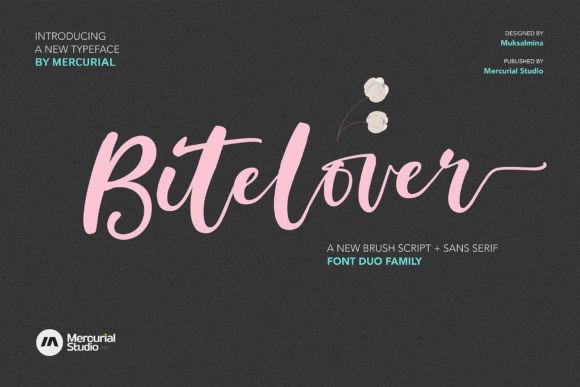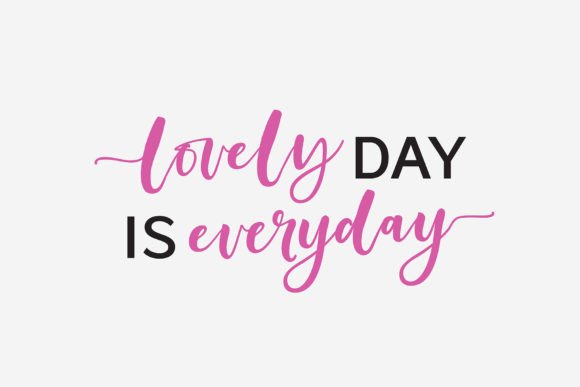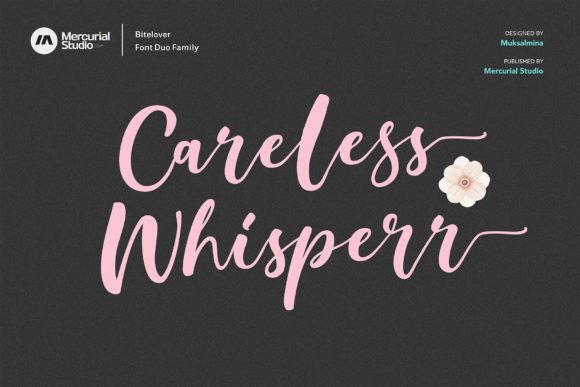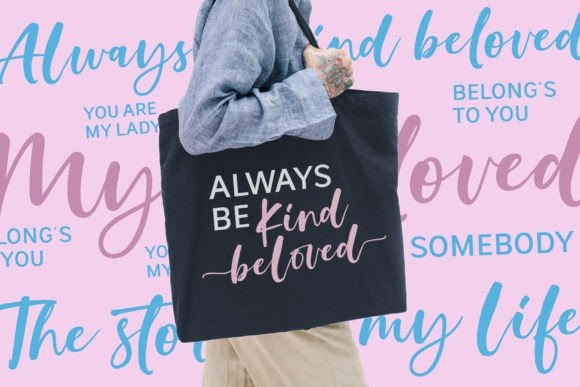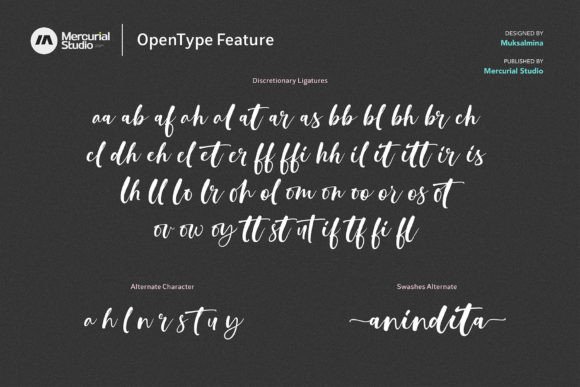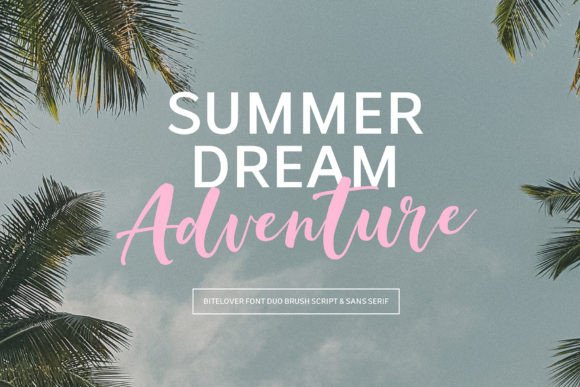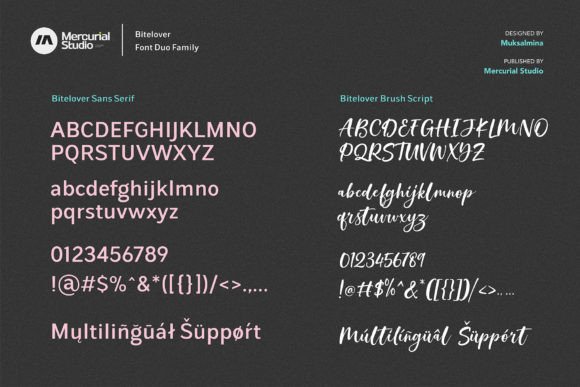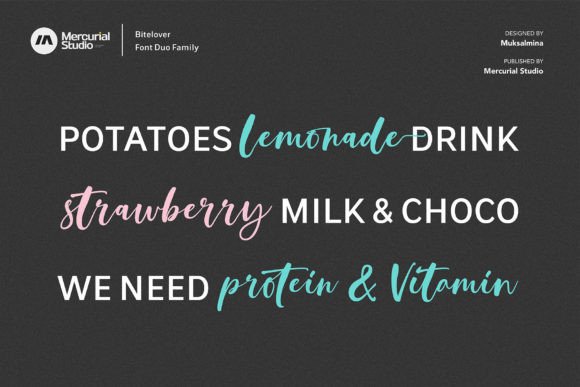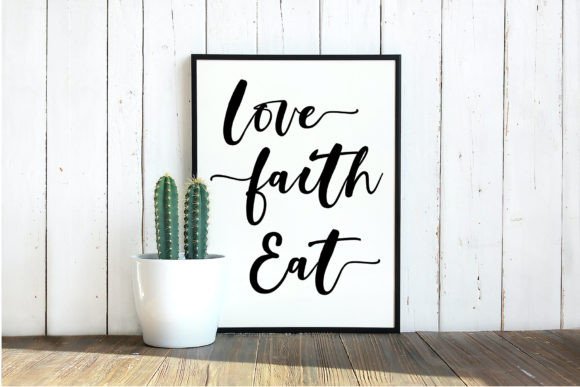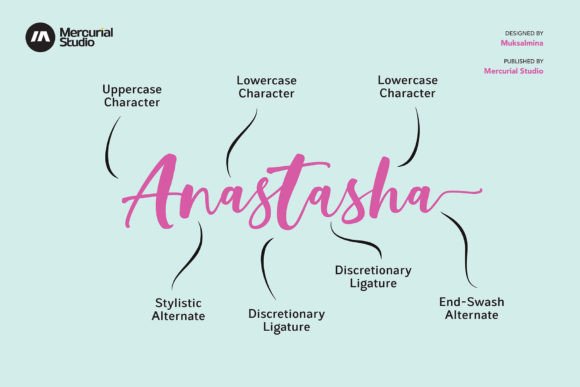
Bitelover
About Bitelover
Bitelover is a modern and charming duo font. Not too thin and not too thick, balanced and exclusive, this font was designed to enhance the beauty of your design ideas. Bitelover is PUA encoded which means you can access all of the alternate characters and swashes with ease!